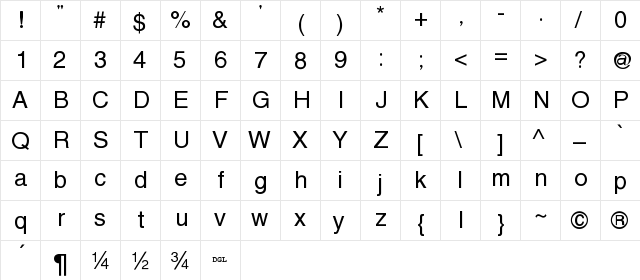
Protestant - DGL Regular
Design Context for Protestant - DGL Typeface
Protestant - DGL takes a measured approach to typography — its balanced proportions and neutral character make it a reliable workhorse for both digital and print work.